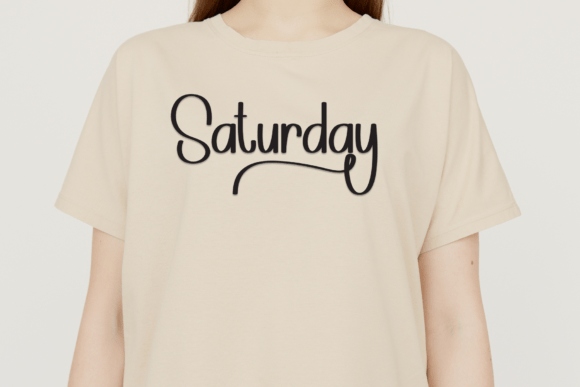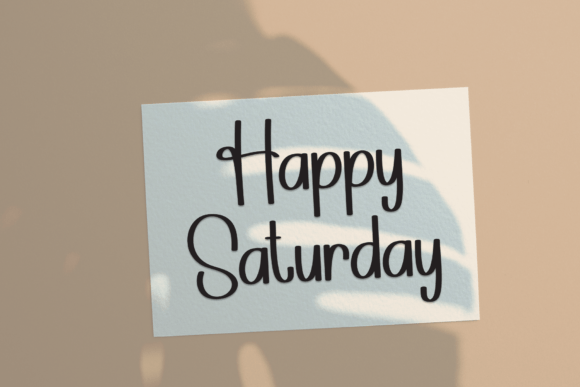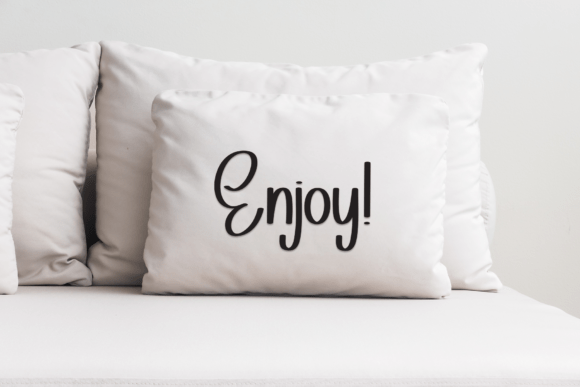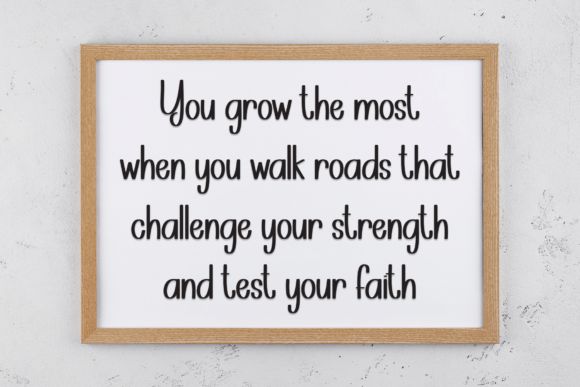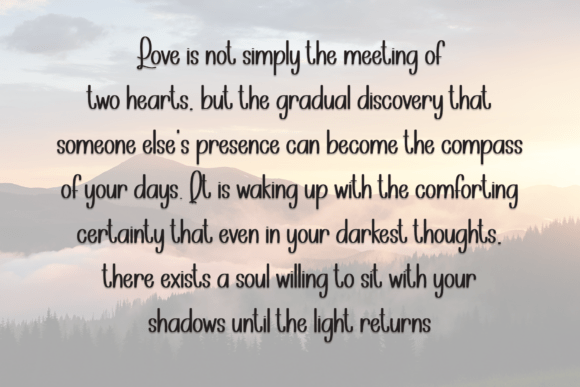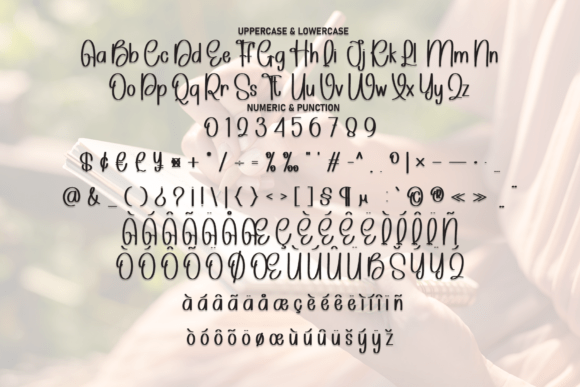
Introduction to Journaly Font Font
Fonts play a crucial role in design, and the Journaly Font font is a typeface that brings both character and versatility to any project. Whether you’re working on a branding project, a website, or a print design, the Journaly Font font offers a unique style that can elevate your work.
Step into the enchanting world of our expertly handcrafted display font.
Brimming with a delightful and whimsical essence, this unique typeface masterfully incorporates a dash of calligraphic artistry, transforming ordinary greetings into sincere sentiments, and adding a captivating charm to your designs Ideal for projects that seek to mesmerize with a charismatic magnetism.
Key Features of Journaly Font Font
Why Choose Journaly Font Font?
The Journaly Font font is more than just a typeface – it’s a design tool that helps you communicate your message with style and clarity. Its unique character set and versatile design make it suitable for a wide range of applications, from elegant invitations to bold headlines.
With its carefully crafted letterforms and balanced proportions, the Journaly Font font ensures readability and visual appeal across all mediums.
What makes Journaly Font font special?
The Journaly Font font stands out with its unique design, exceptional readability, and versatility across various design applications.